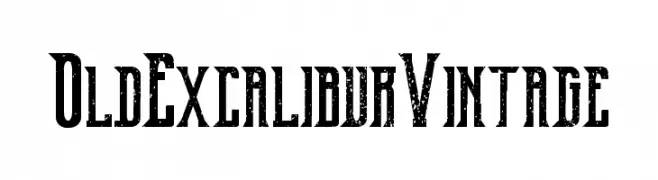
A bold, distressed font with a textured, weathered appearance.
A vintage, distressed font with bold, sharp serifs and a weathered texture.
A bold, distressed font with a gritty, weathered texture.
A bold, distressed font with a textured, weathered appearance.
A bold, distressed font with an eroded, rugged appearance.
A rugged, distressed font with jagged, weathered edges.
A bold, distressed font with a gritty, weathered texture.
A bold, distressed font with a textured, weathered appearance.
A bold, distressed font with a vintage, weathered look.
A bold, distressed font with a vintage, weathered appearance.